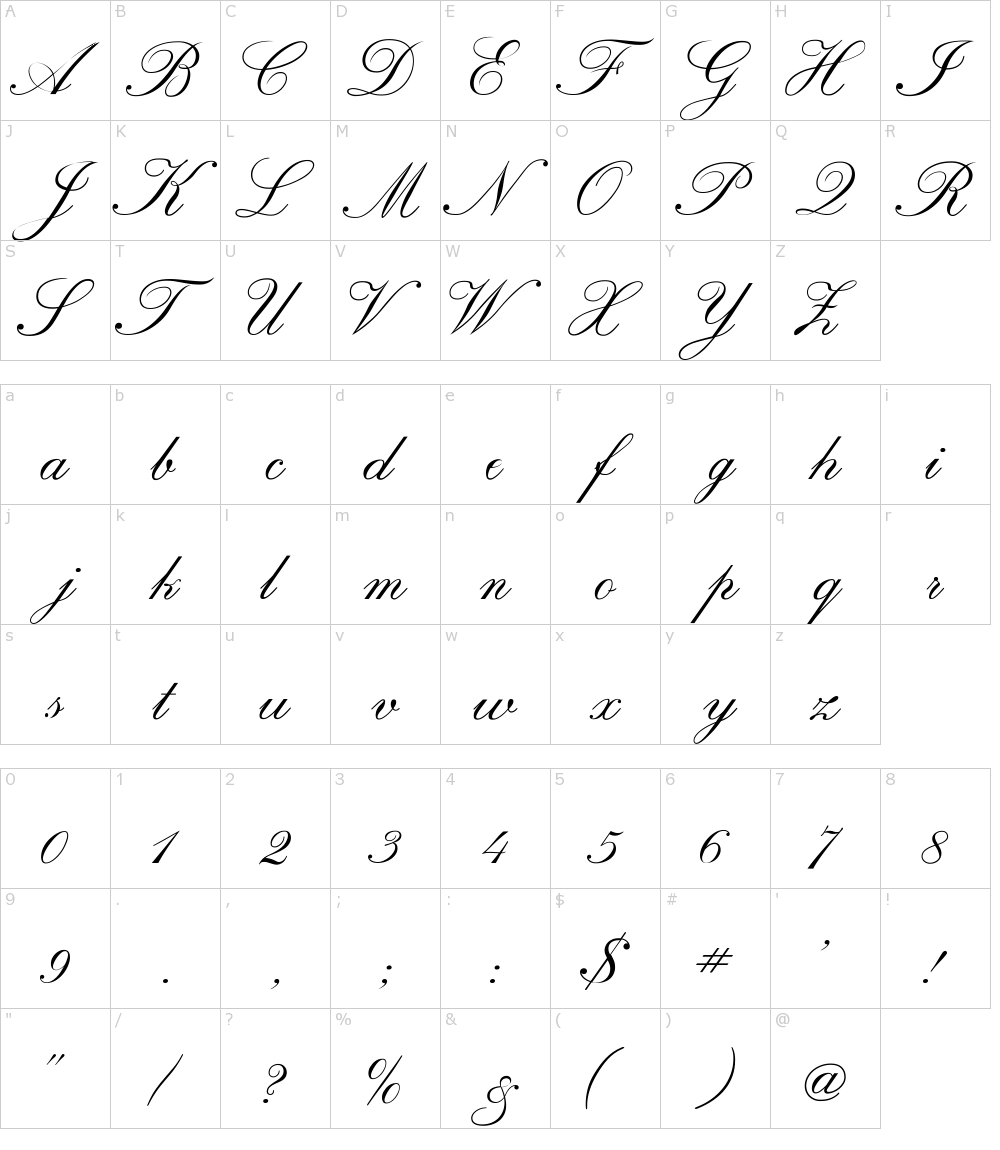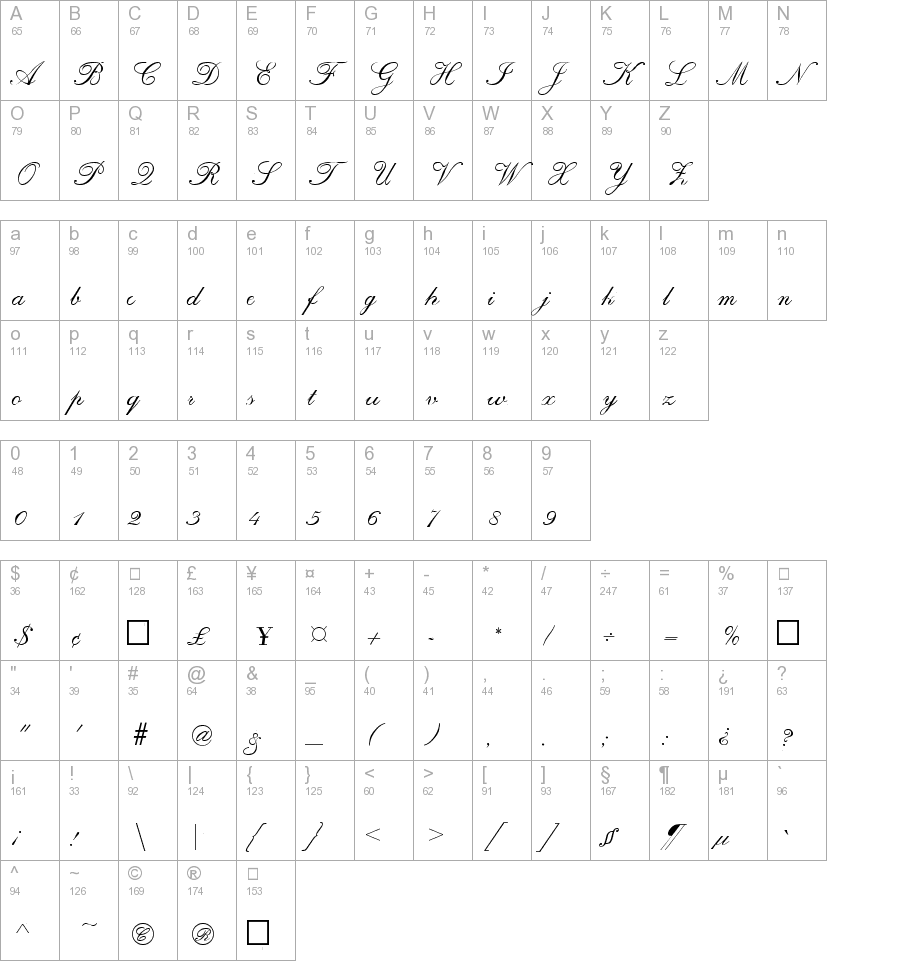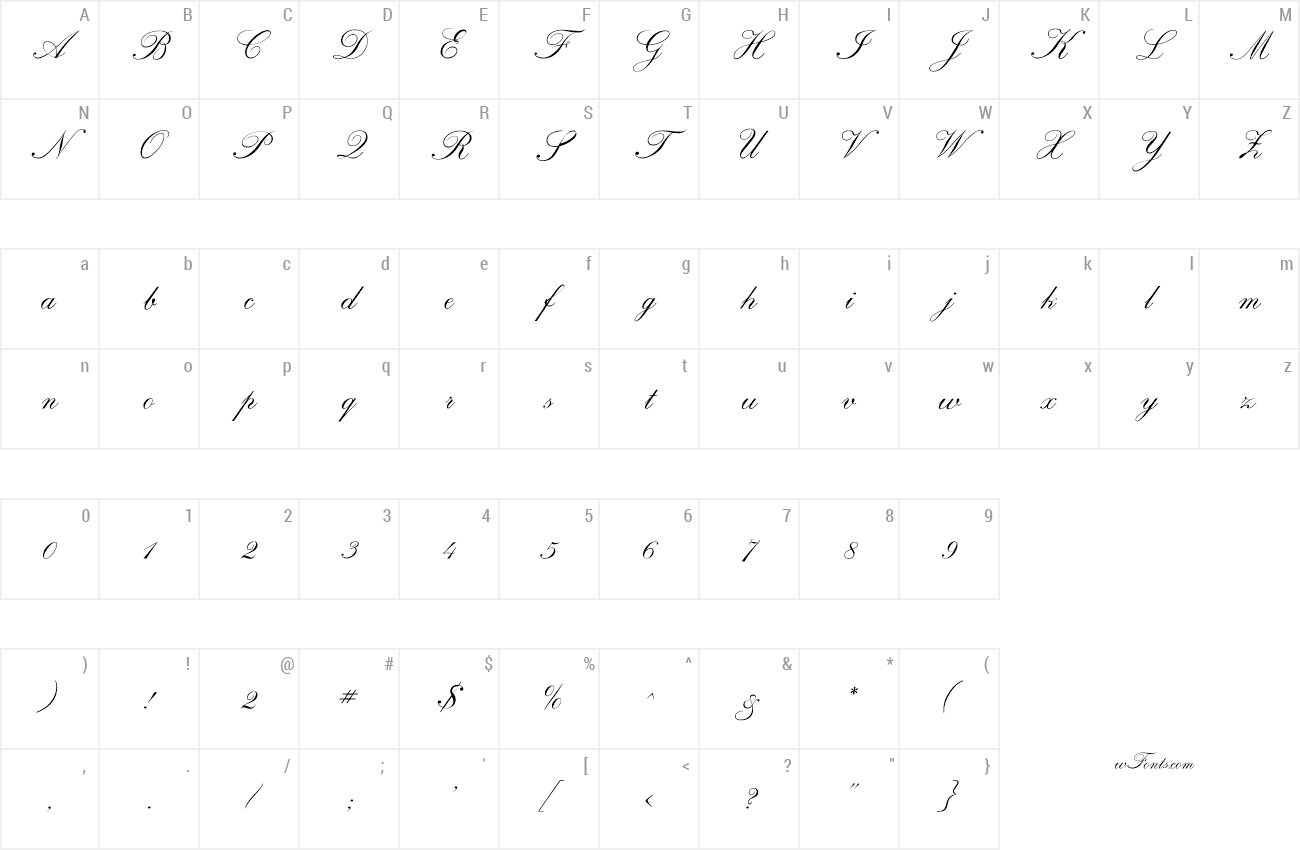
Review Of Regency Era Fonts Ideas. The prince regent enjoyed luxury and spent money lavishly. Victorian fonts have designs that reflect the victorian period of art in britain in the early 1900s.
Victorian fonts have designs that reflect the victorian period of art in britain in the early 1900s. Searching for fonts that look like regency script? Regency era ladies went commando and wet their shirts left:
A modern classic, it is influenced by amer. A modern classic, it is influenced by americana and optima and combines the style. A modern classic, it is influenced by americana and optima and combines the style.
Victorian Letters Are Elaborate And Have Ornate Borders.
Regency is named after the style associated with the period, which is at once elegant and luxurious. Regency is named after the style associated with the period, which is at once elegant and luxurious. Victorian fonts have designs that reflect the victorian period of art in britain in the early 1900s.
Regency period fashion styles changed drastically by the emergence of emphasizing the empire silhouette. Fonts regency in script category. Regency font family dec 13, 2018 about this font family regency is named after the style associated with the period, which is at once elegant and luxurious.